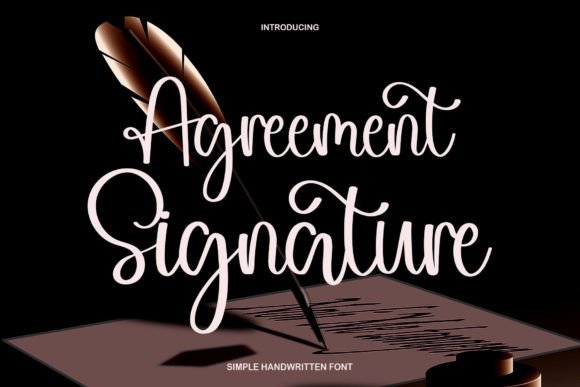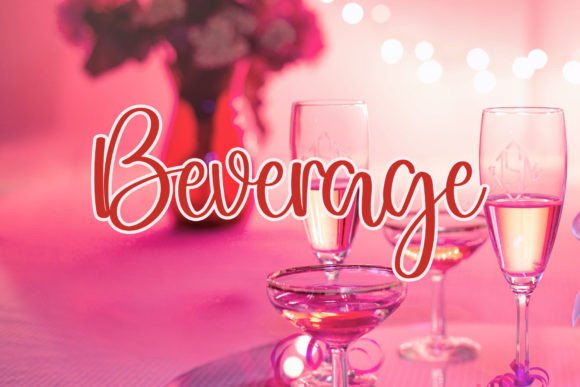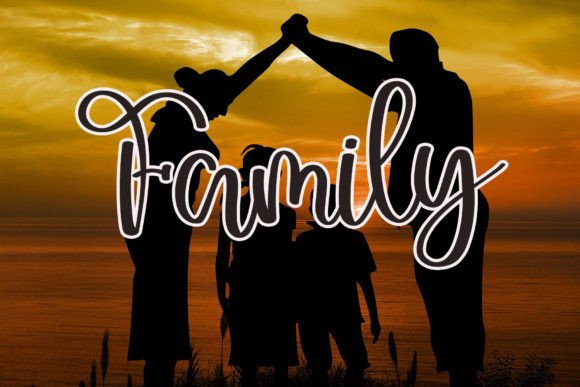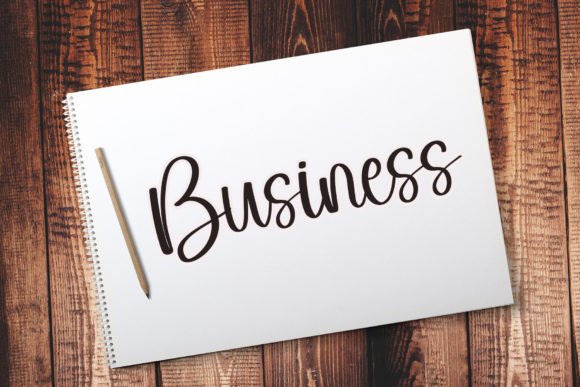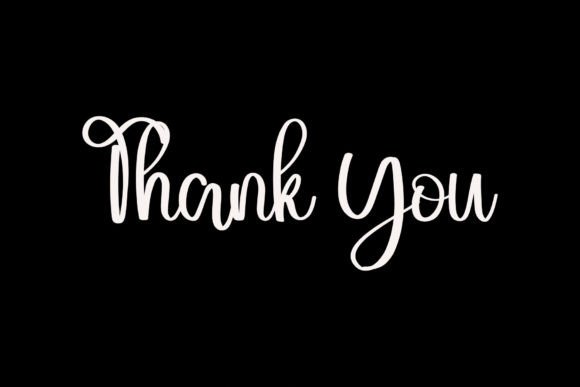
Agreement Signature
About Agreement Signature
Agreement Signature is a classic and elegant handwritten script. The distinctive outline of the characters will make your design ideas unforgettable. Fall in love with it and bring your projects to their peaks. This font is PUA encoded which means you can access all of the wonderful glyphs and ligatures with ease!